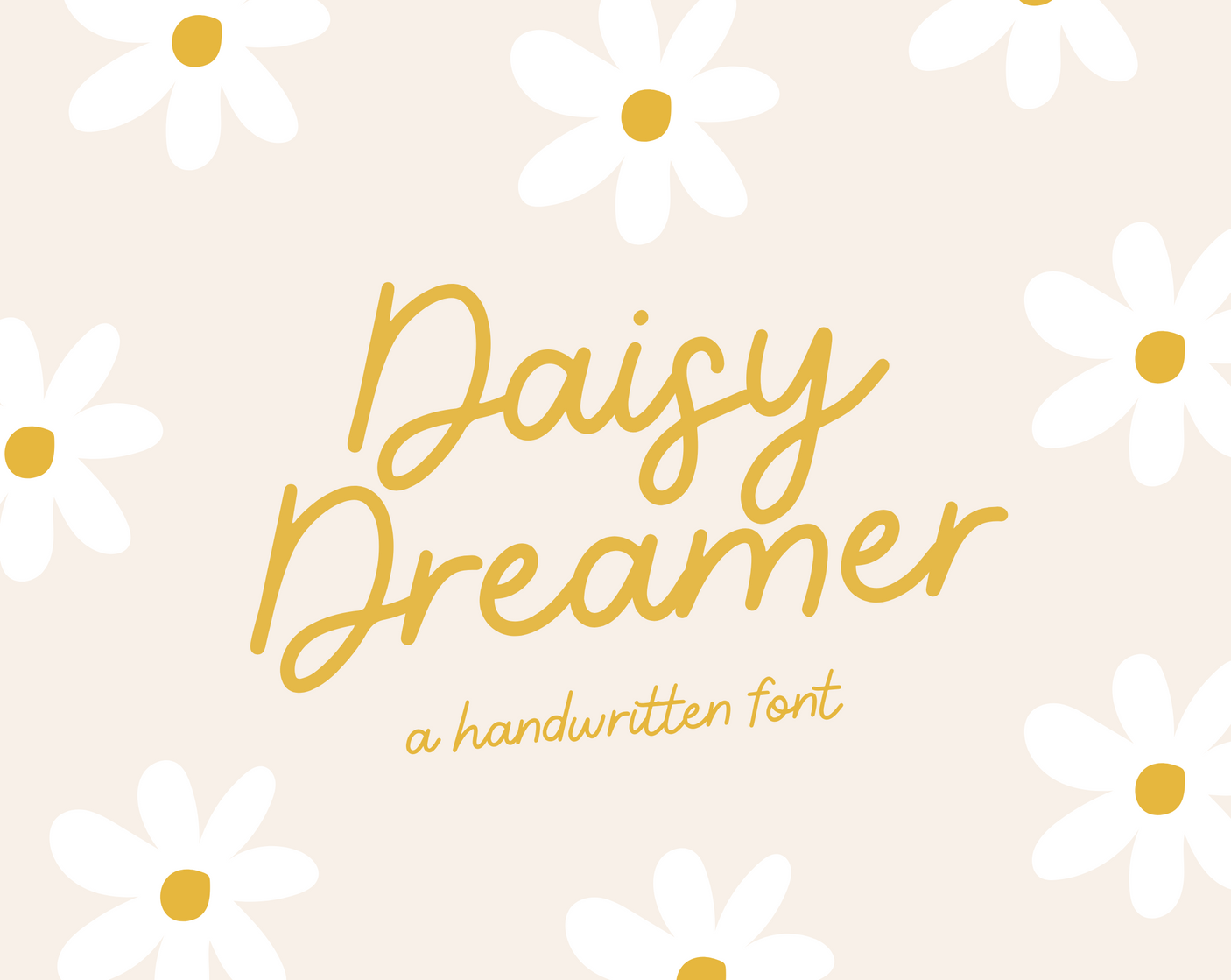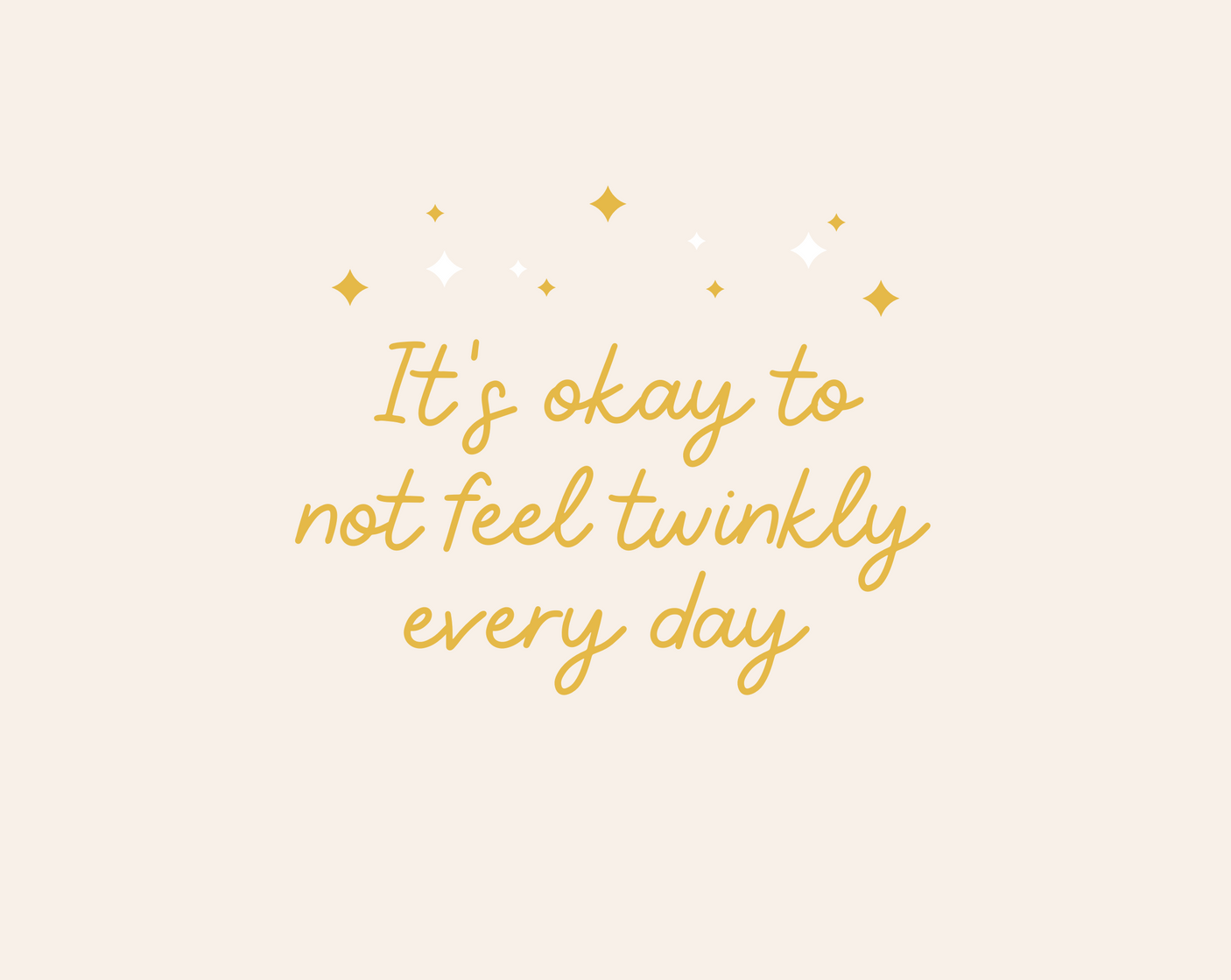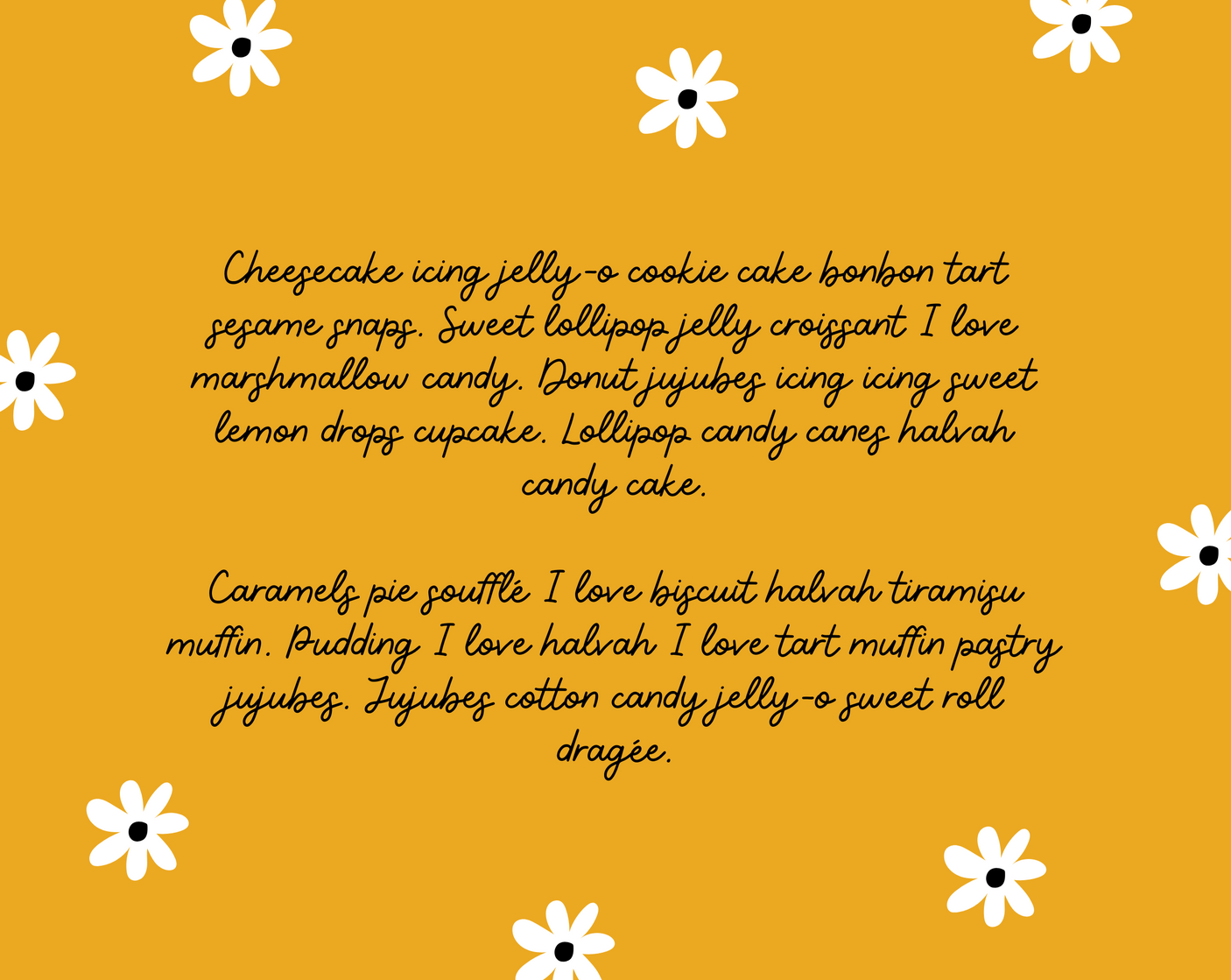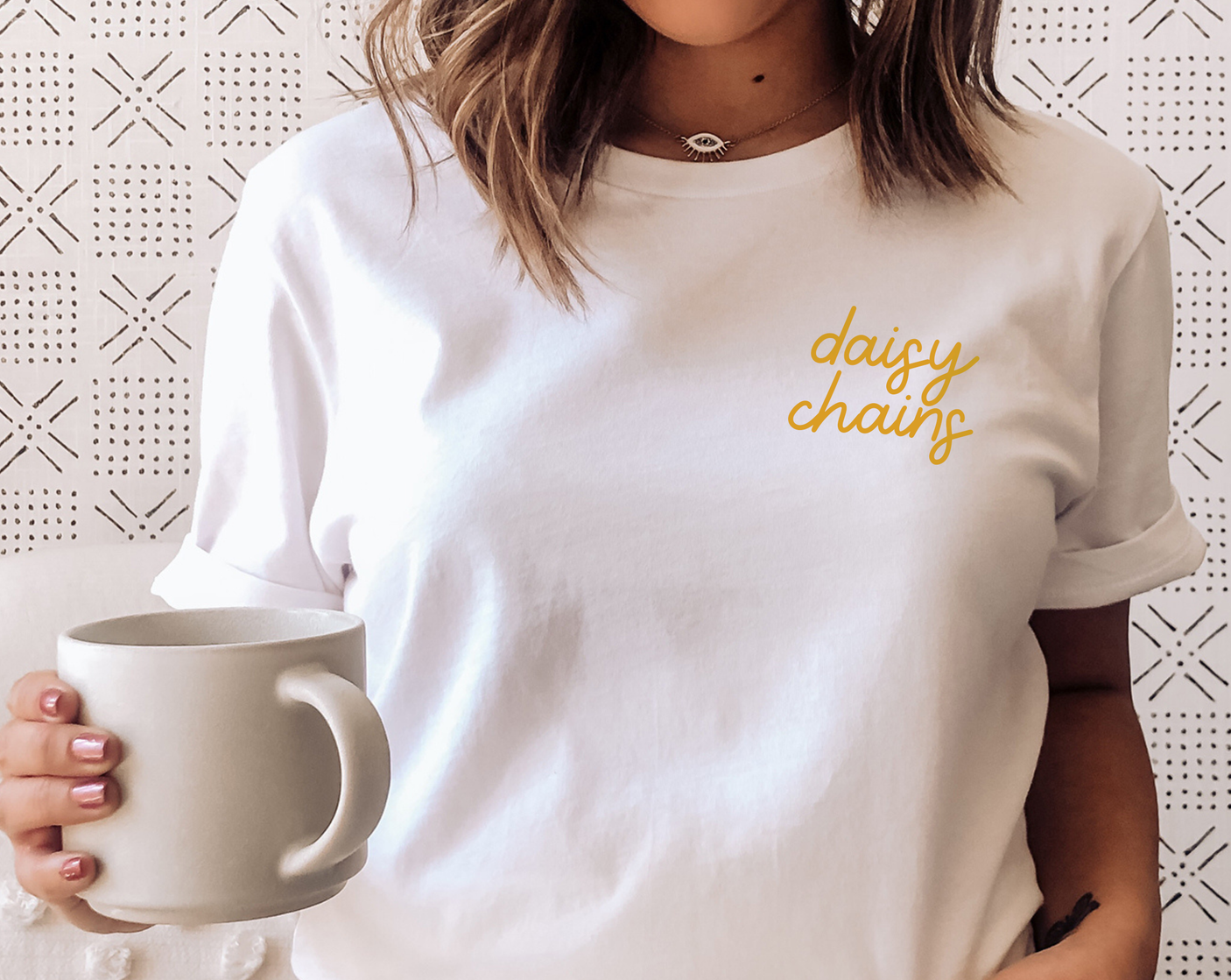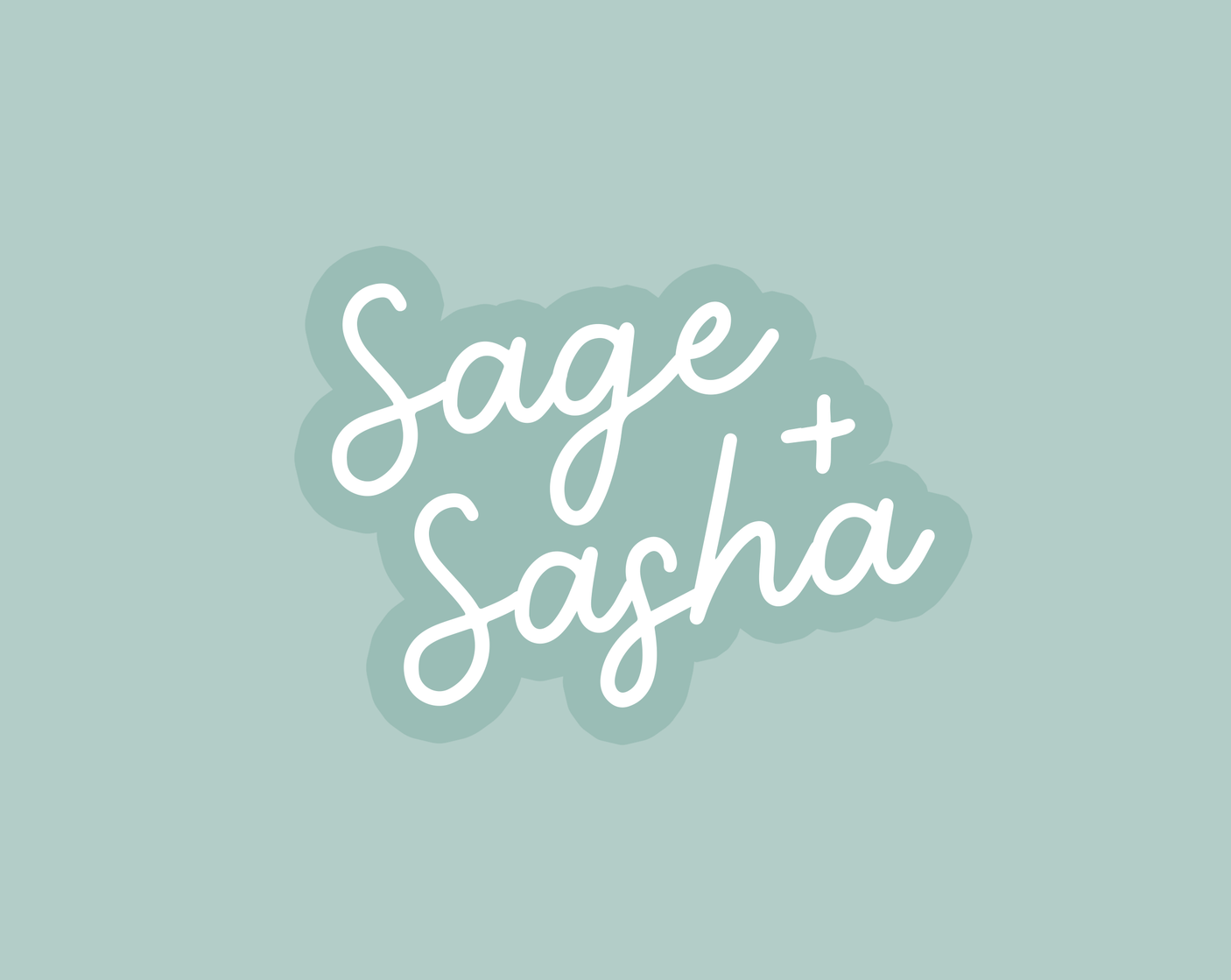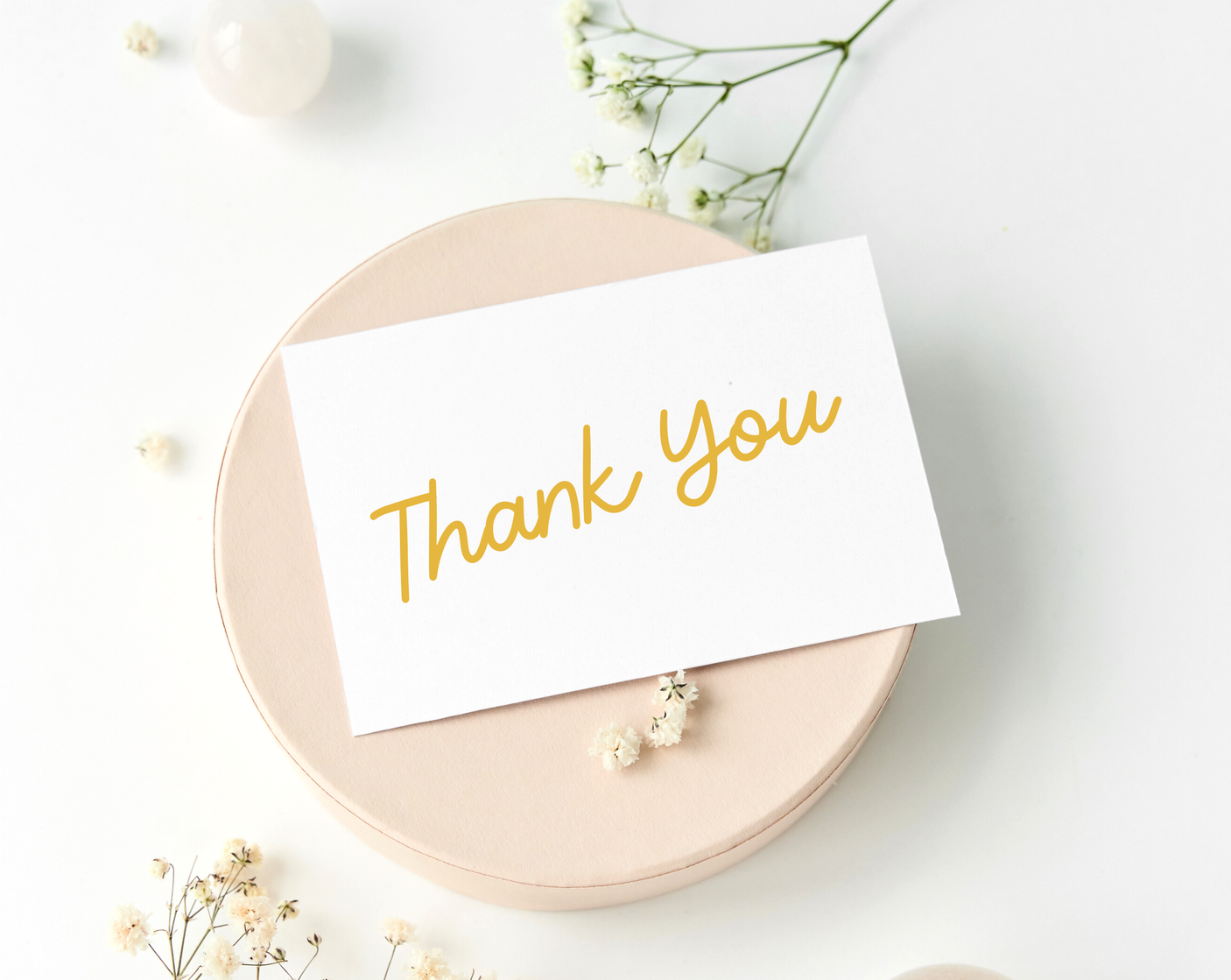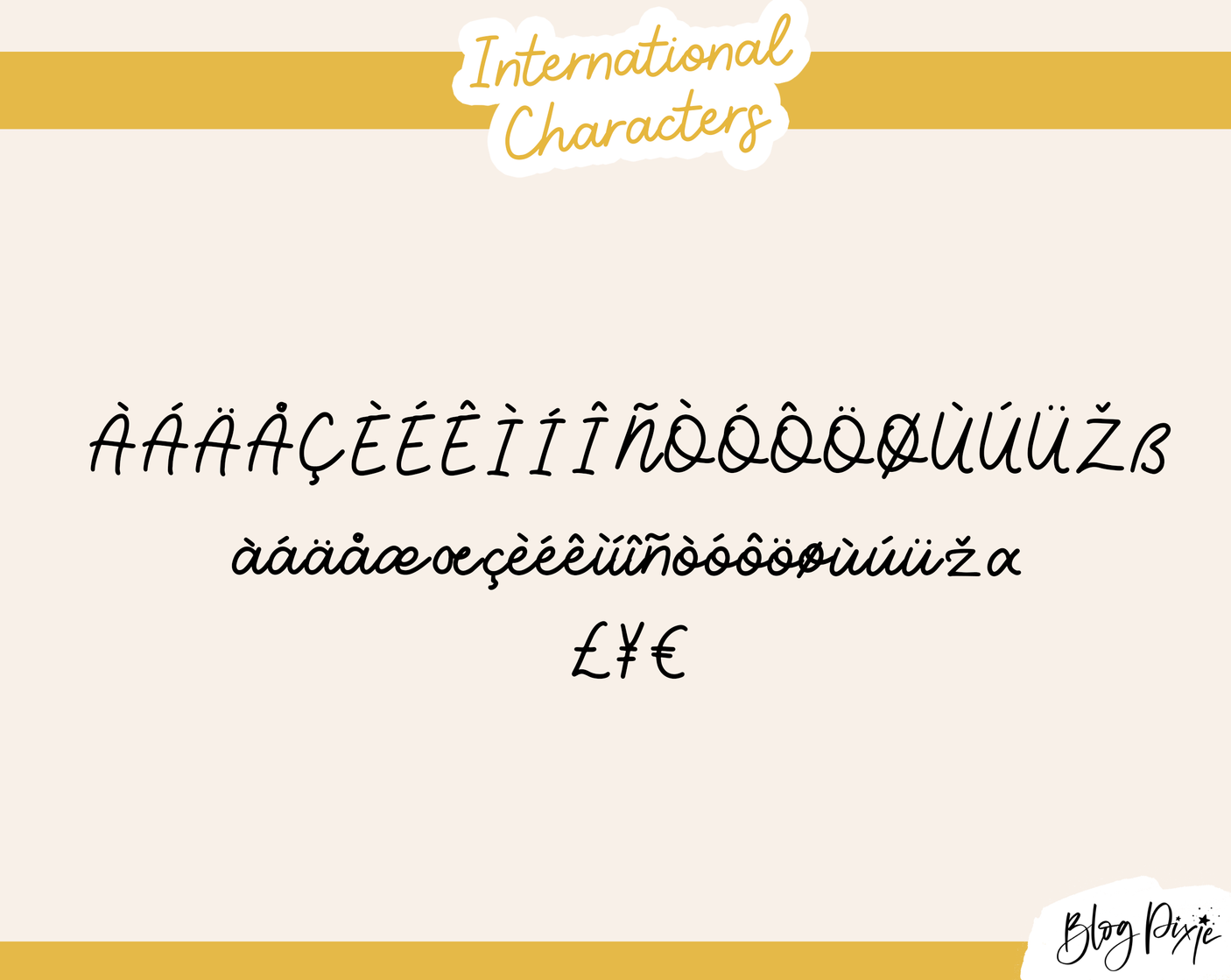
Daisy Dreamer Font
Daisy Dreamer is a handwriting font by Design Pixie. A great addition to add to your collection, this font can be used for Cricut, Procreate, Goodnotes, iPad and more. It’s a neat handwritten cursive font for digital planning, note-taking, logos, crafty work and digital projects.